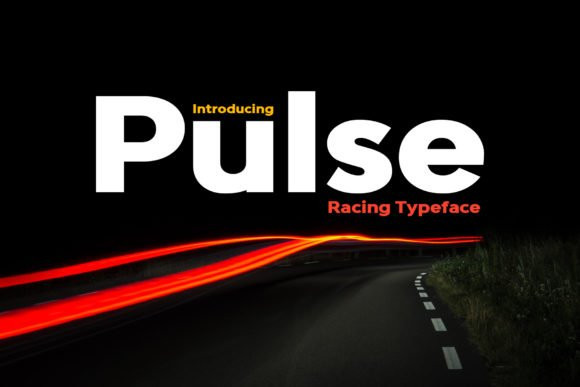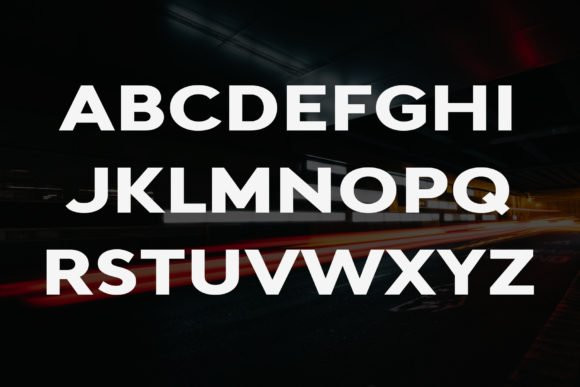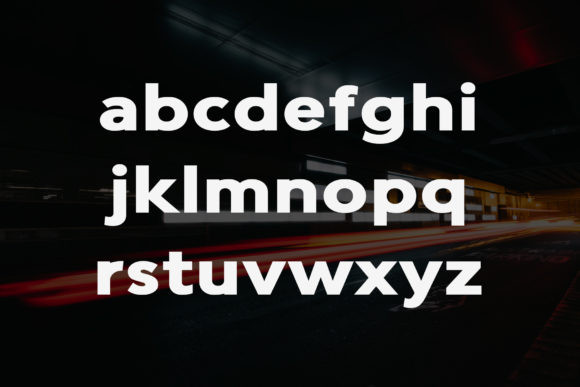
Pulse Font
Pulse is a bold and simple display font. This font is versatile and perfect for any design including logos, flyers, posters, headlines, sports, video editing and much more. Possibilities are endless.